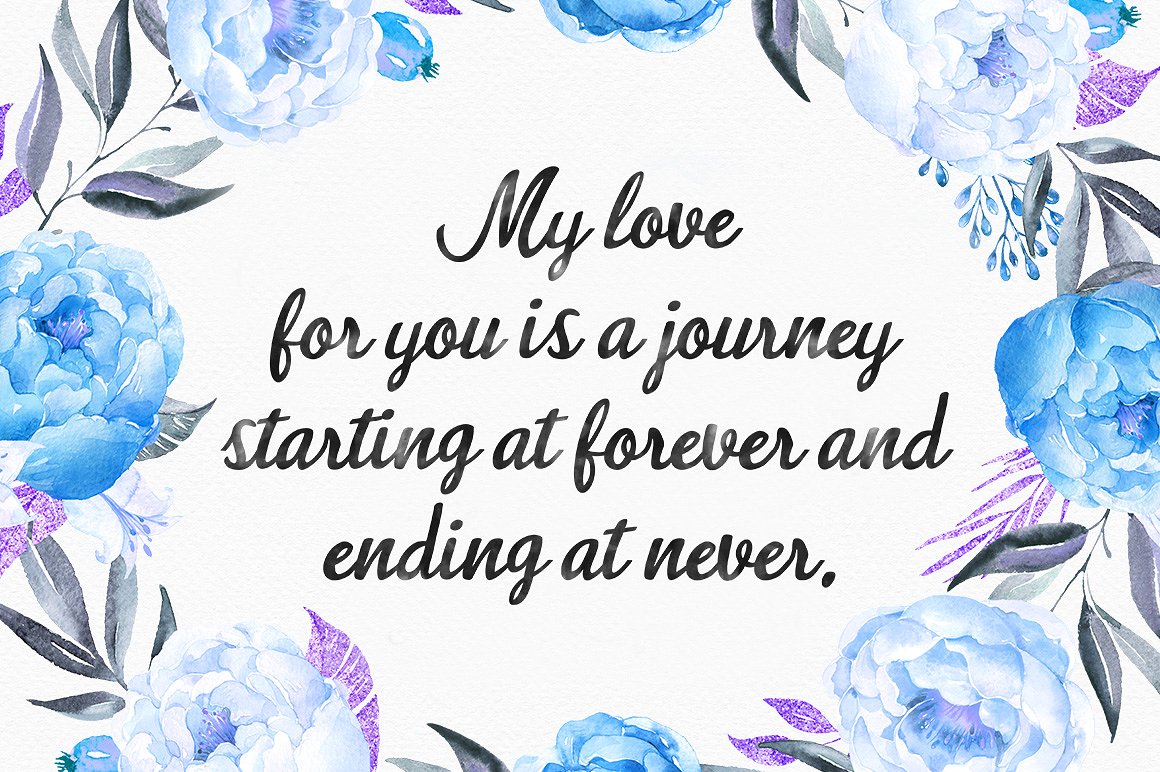
Introduction to Navisha Script Font
Have you ever stared at a blank canvas, waiting for the perfect spark to ignite your creative project? The silence is broken by the sound of your pen gliding across the paper, as the words begin to flow. For designers, this moment is like a breath of fresh air – the freedom to bring their vision to life. One essential tool that can elevate this experience is the Navisha Script Font, a modern handwritten font that exudes elegance and sophistication.
With its smooth, flowing set of characters, the Navisha Script Font is a design resource that adds a touch of whimsy and romance to any project. Whether you’re working on a branding project or a wedding invitation, this font is sure to make a lasting impression. Plus, with its transparent background, you can easily customize it to fit your design needs.
Key Features of Navisha Script Font
- High-quality, elegant script font ideal for creative projects and design resources.
- Designed to be versatile and stylish, perfect for adding a touch of sophistication to any design project.
- Perfect for use in logos, branding materials, and other design elements where a elegant, handwritten feel is desired.
Honest Review: Navisha Script Font
As a designer, I’m always on the lookout for high-quality design resources to elevate my creative projects. Recently, I had the chance to work with the Navisha Script Font, and I’m excited to share my honest review.
- ✨ Elegant and sophisticated look that’s perfect for weddings, invitations, and other special occasions
- ✨ High-quality design that’s crisp and clear, even at larger font sizes
- ⚠️ Limited language support, which may be a concern for designers working on multilingual projects
- ⚠️ Some users may find the font a bit too ornate, which could be overwhelming for simpler designs
Overall, I’m impressed with the Navisha Script Font. It’s a great addition to any designer’s toolkit, and I appreciate that it’s available for free download. If you’re looking for a high-quality, elegant font for your next creative project, I’d definitely recommend giving it a try.
Common Use Cases for Navisha Script Font
Navisha Script Font is perfect for a variety of design projects, including wedding invitations, quotes, and custom logos. Its elegant design and high-quality aesthetic make it a great choice for designers who want to add a touch of sophistication to their work.